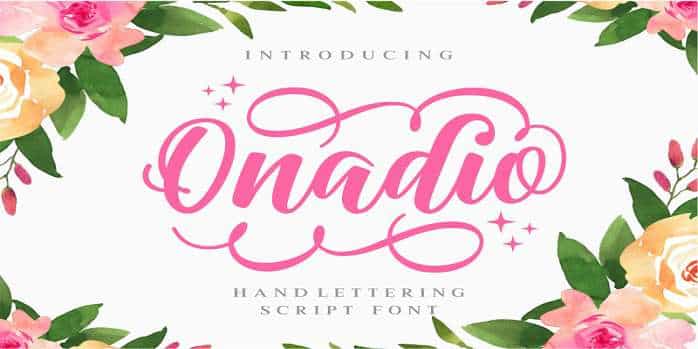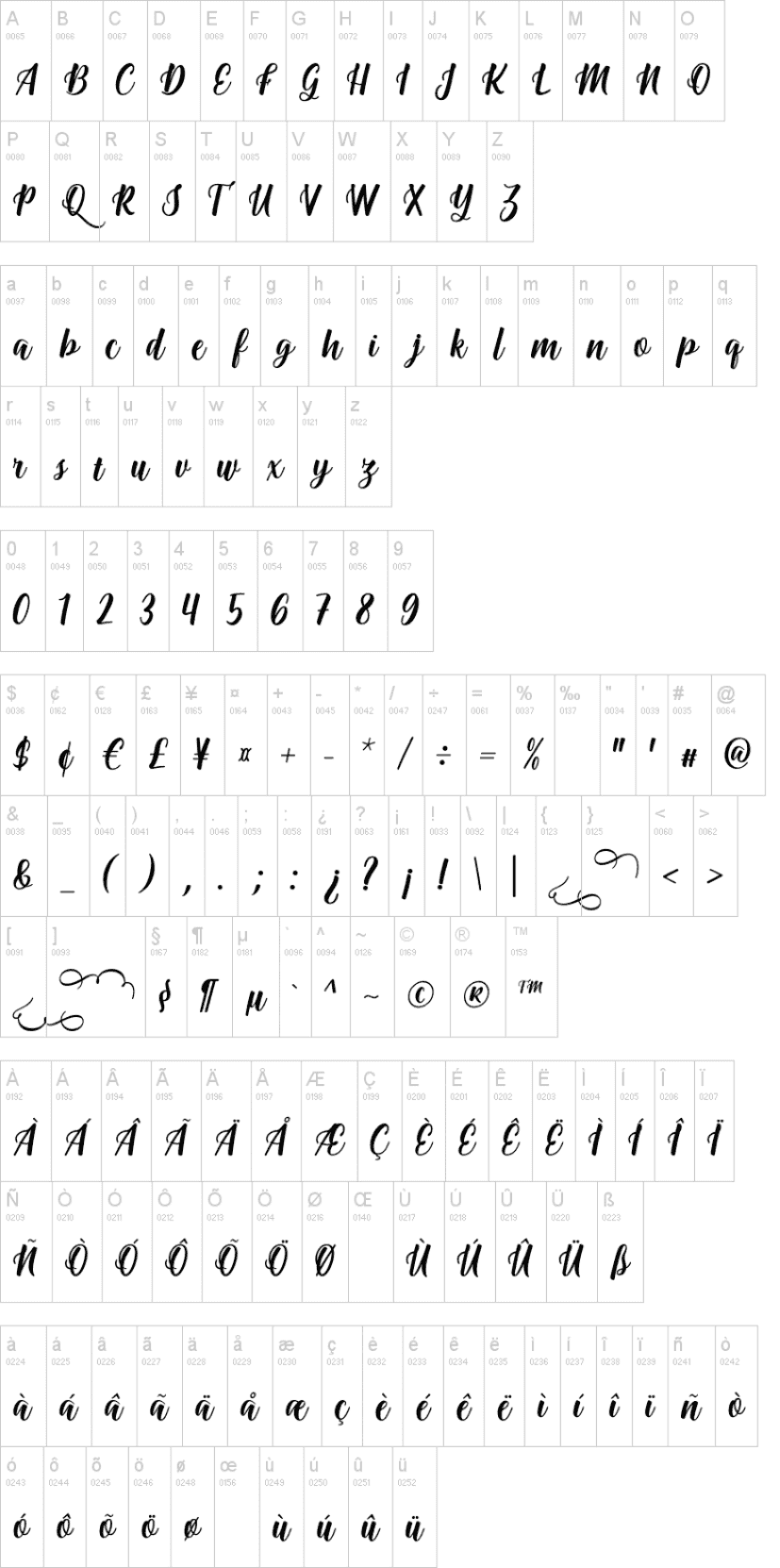
Onadio is a premium and elegant Calligraphy font that was created by 7NTypes and can be downloaded for free and for personal use only. The free version has all the alphabetical letters both capital and small along with some special characters.